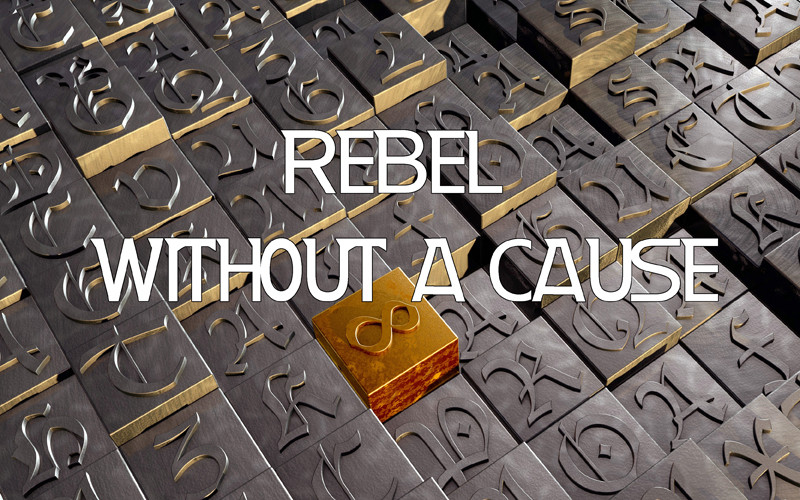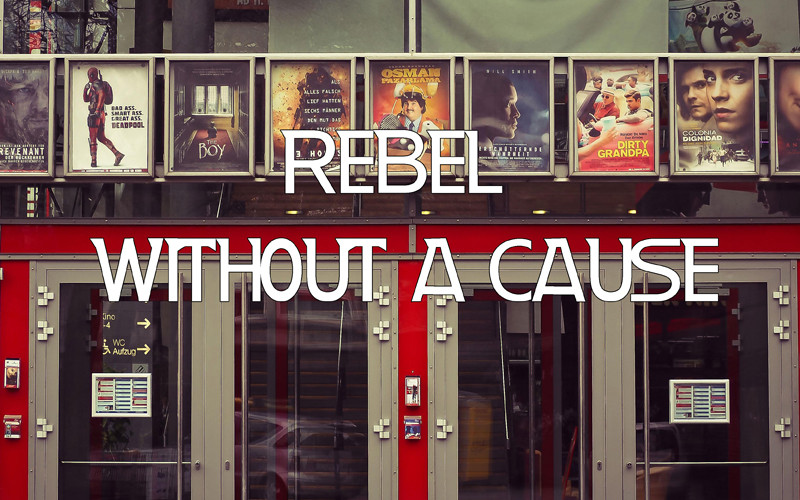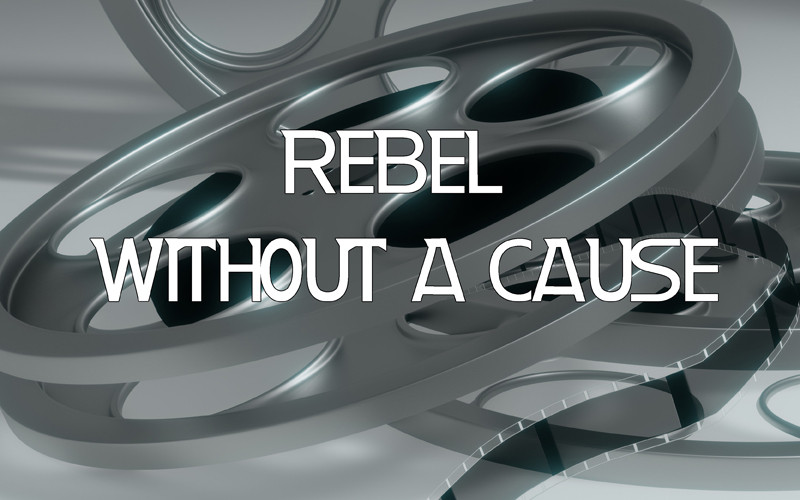
Rebel Font
Directly from the film directed by Nicholas Ray, starring an unforgettable JAMES DEAN, the new font for all fans of the film.
Direttamente dal film diretto da Nicholas Ray, interpretato da un indimenticabile JAMES DEAN, il font inedito per tutti gli estimatori del film.